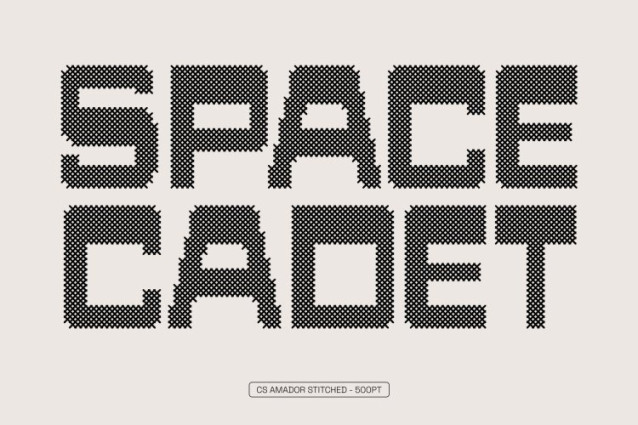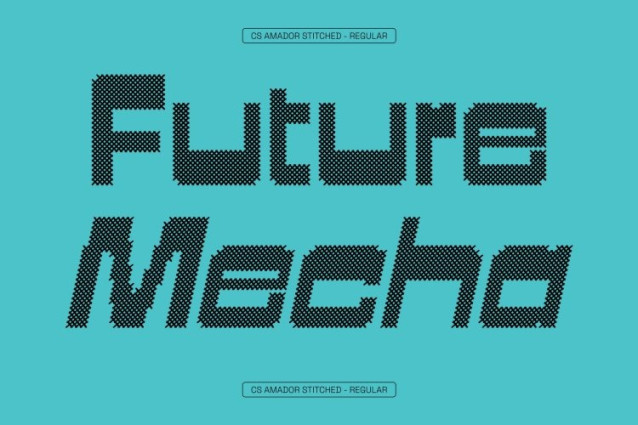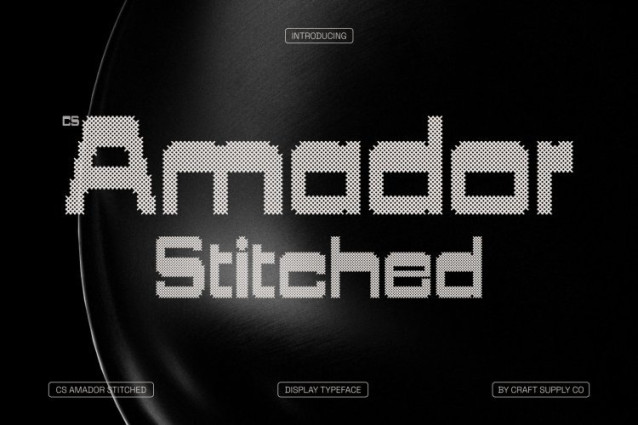
CS Amador Stitched Font
CS Amador Stitched Font -This is a reverse contrast sans serif font that fuses masculine confidence with stylish contemporary design. Defined by bold shapes and modular geometry, it captures the power of modern aesthetics while offering a distinctive visual twist through its reverse contrast structure. Enhanced with a stitched style inspired by thread sewn or embroidered on fabric, this version introduces warmth and tactile character to its strong architectural form.
Embossed Stitch Detail with Industrial Precision
The unique reverse contrast construction is elevated by a cross-shaped stitch pattern that creates an embossed and structured texture across each letterform. This stitched detailing adds a classic, nostalgic, relaxed, and warm impression softening the industrial edge while maintaining the font’s assertive presence.
Distinctive Character for Modern Expression
Strong verticals, confident proportions, and subtle stylistic nuances give a daring and fresh rhythm. Its structured clarity ensures readability, while the stitched finish enhances depth and originality making it perfect for designers seeking bold yet refined visual identity.
Perfect for Branding, Posters, and Creative Campaigns
Ideal for branding, editorial layouts, posters, packaging, fashion logos, and contemporary promotional materials, delivers commanding impact. Whether used for technology brands, fashion campaigns, or creative culture projects, its fusion of modern geometry and handcrafted stitched detail ensures your message stands out with confidence and lasting impression.